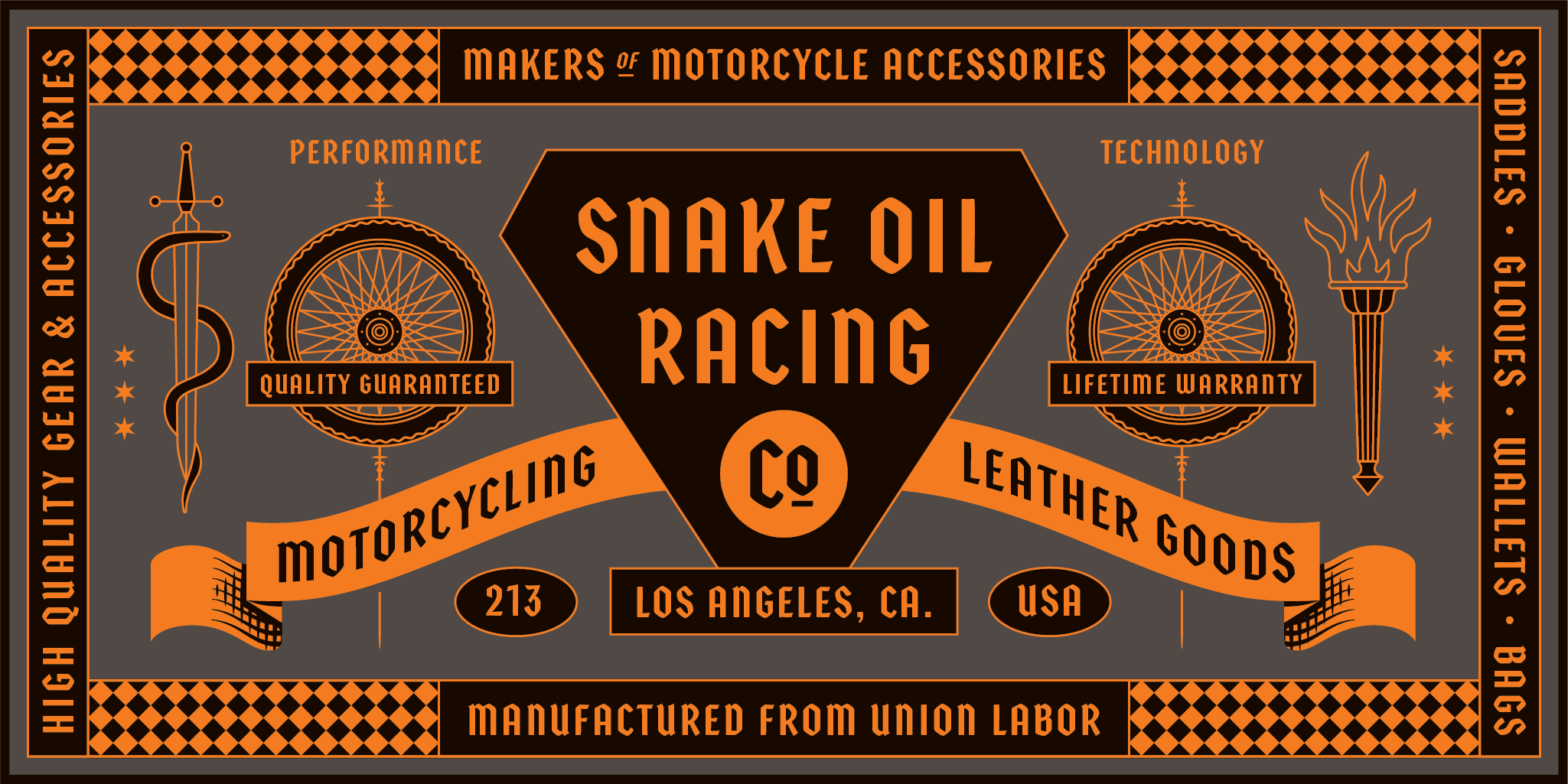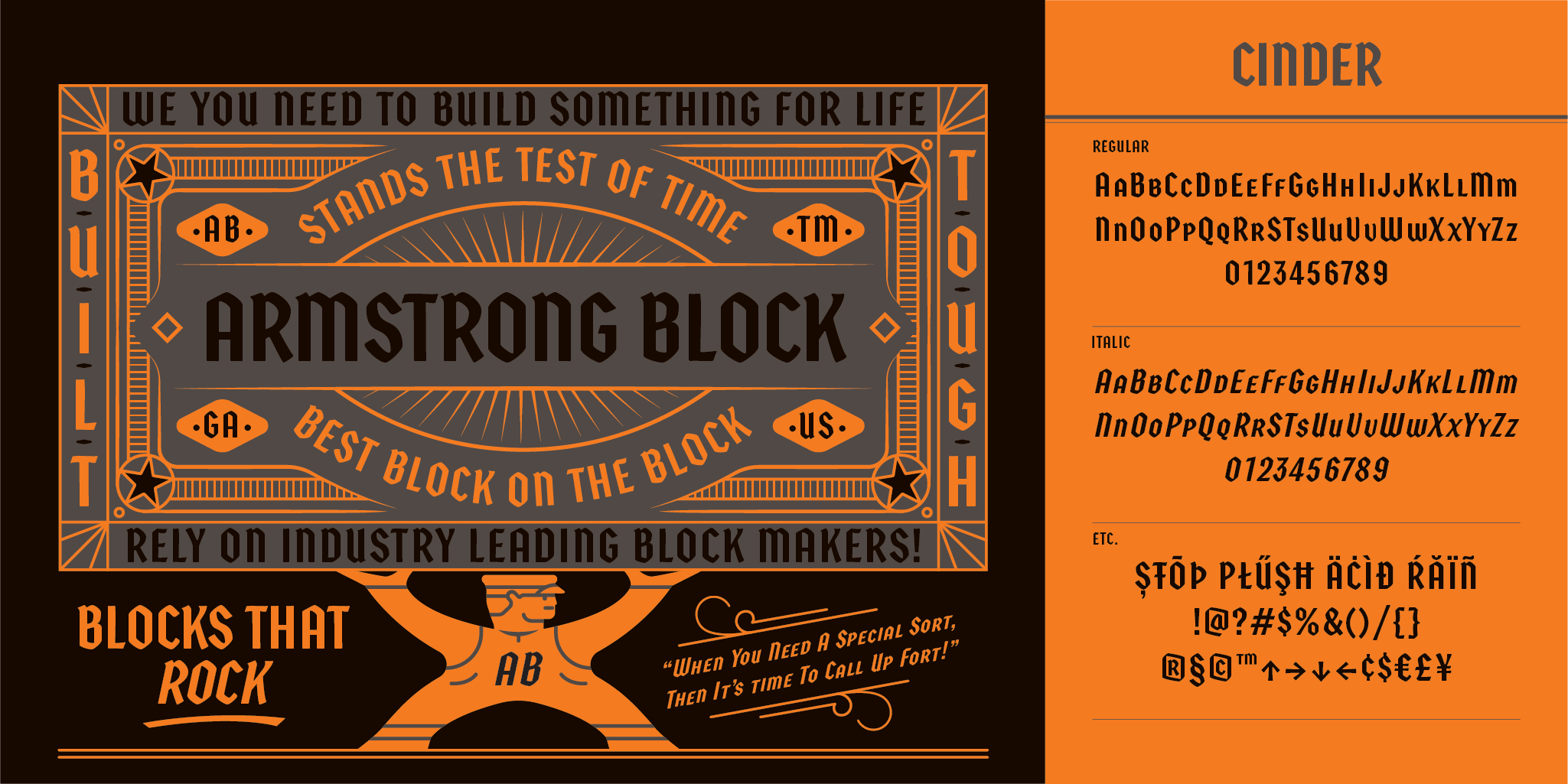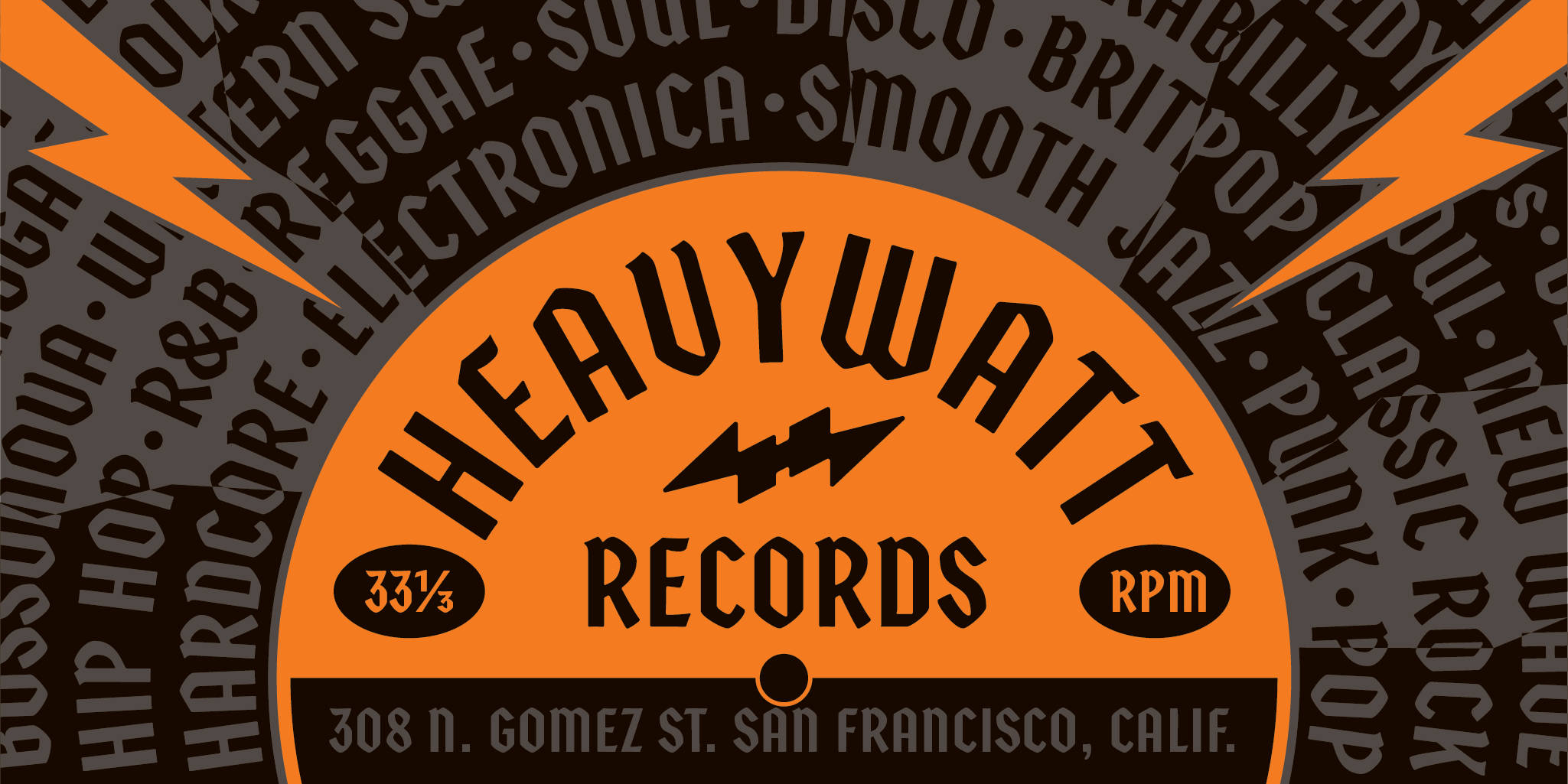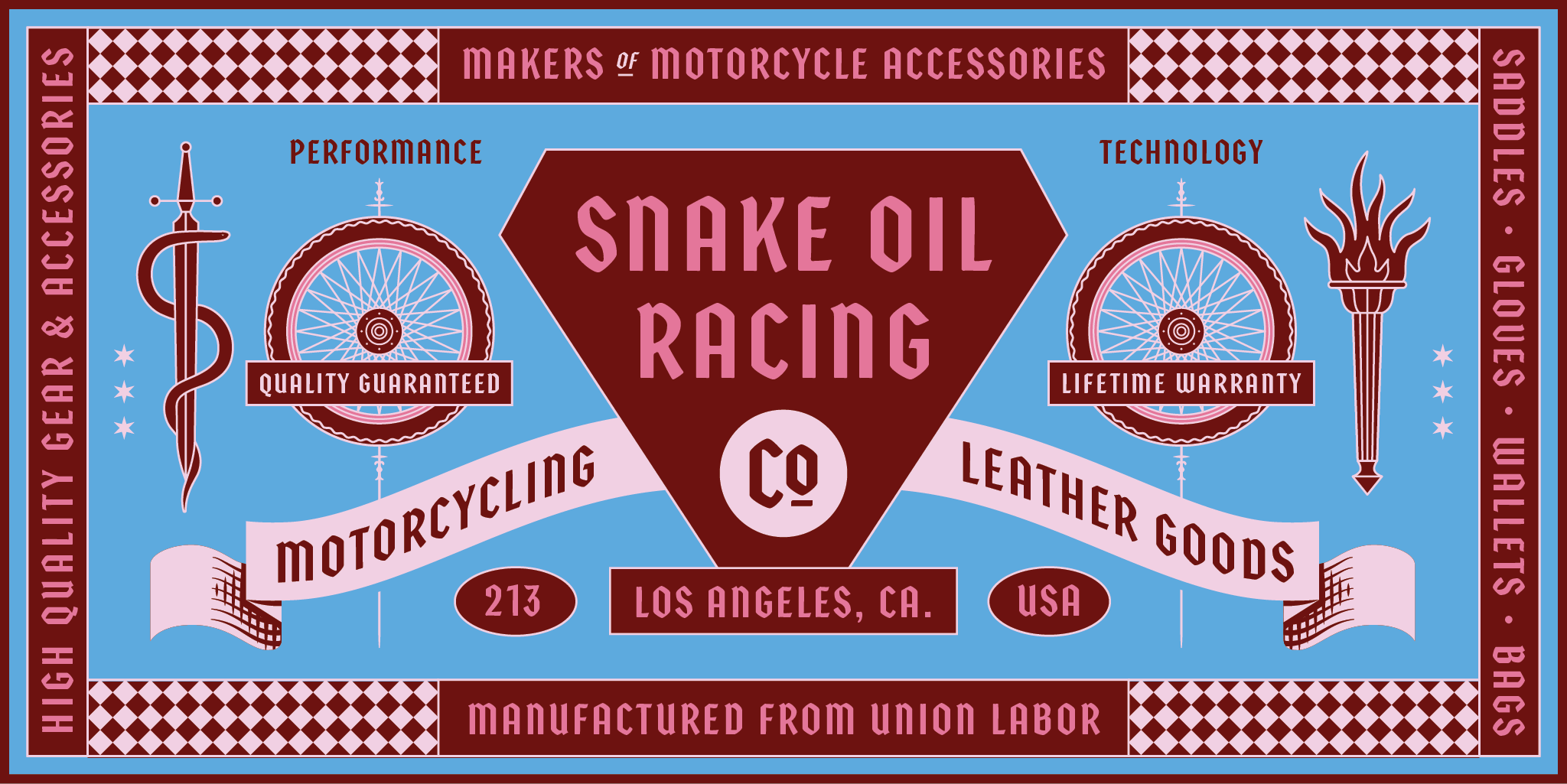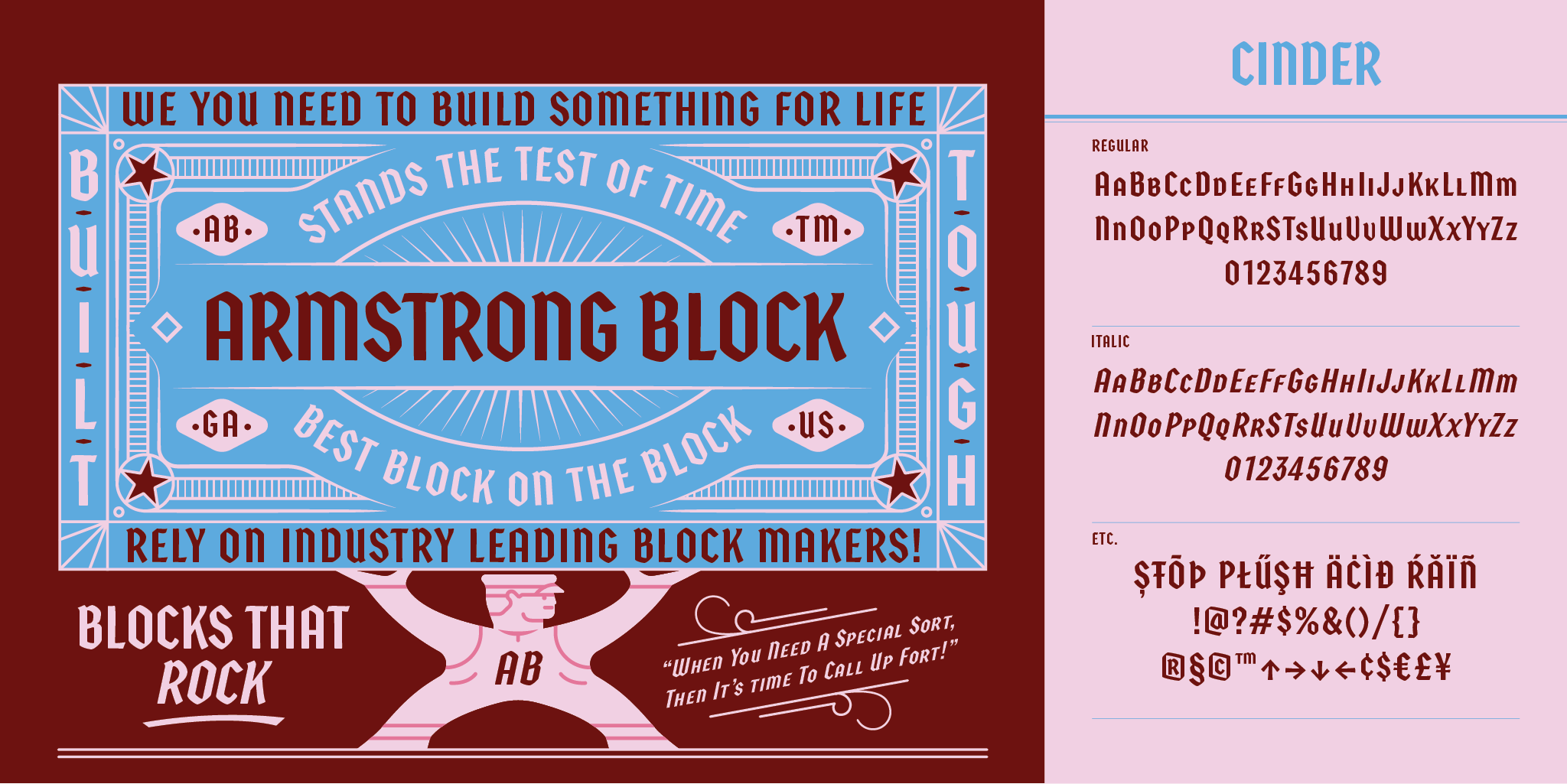
Cinder
Blackletter
Italic
Lowercase Small Caps
Centered Small Caps as Alternates
Fractions
A classic blackletter enchanted with a dose of modern magic.
Inspired by titling and lettering in animation films from the 50s, Cinder takes hints from blackletter styles and interprets them for use in the modern landscape. The typeface utilizes small caps in the place of lowercase that works great for titles, names, short form copy, or you can get a little adventurous and set a whole paragraph in it. The uppercase and small caps can be used together in typical fashion, apart with each being used on its own as an all caps style, or paired together in unique ways. Throw some pixie dust into the mix with stylistic alternates that center the small caps onto the uppercase. Make your next project the fairest of them all.